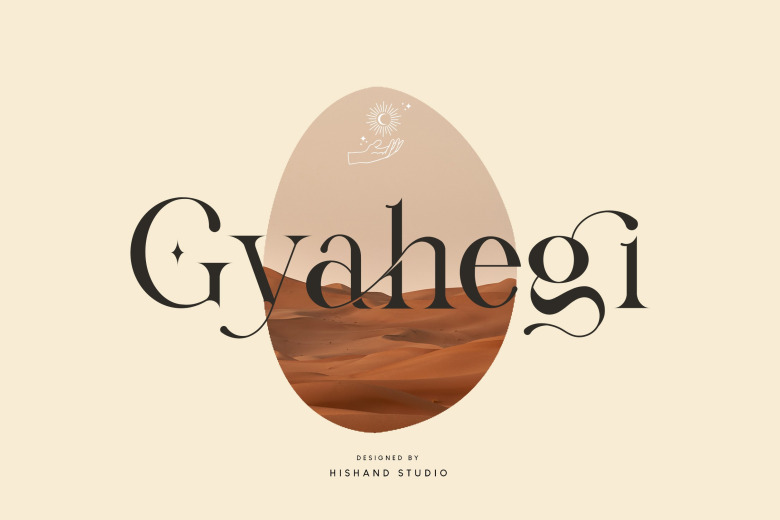
Gyahegi Font
Gyahegi Serif Font is a lovely and classy serif that comes in value package with beautiful ligatures. It’s designed and shared by Hishand studio. It is good for Logo brand, advertisement, product packaging, social media post, clothing brand, magazine headers and many more.
Gyahegi Serif Font